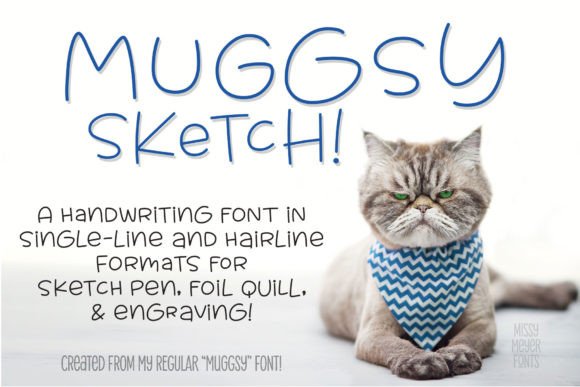
Introducing Muggsy Sketch, the best script font for CNC engraving! Created by GeekMissy, this single-line font is perfect for adding a touch of personality to your projects. Unlike other single-line fonts, Muggsy Sketch features quirky handwriting that's sure to grab attention.
With two uppercase-height alphabets and a full set of 63 "smallternates", you'll have plenty of options for mixing and matching. The font also includes 30 double-letter ligature sets and tons of punctuation, plus over 600 glyphs for extended Latin characters.
Please note that single-line and hairline fonts are not for word processing, printing, or cutting. They're meant for sketch pens, foil quills, engraving tools, and more. But with Muggsy Sketch, you'll be able to take your projects to the next level and stand out from the crowd.